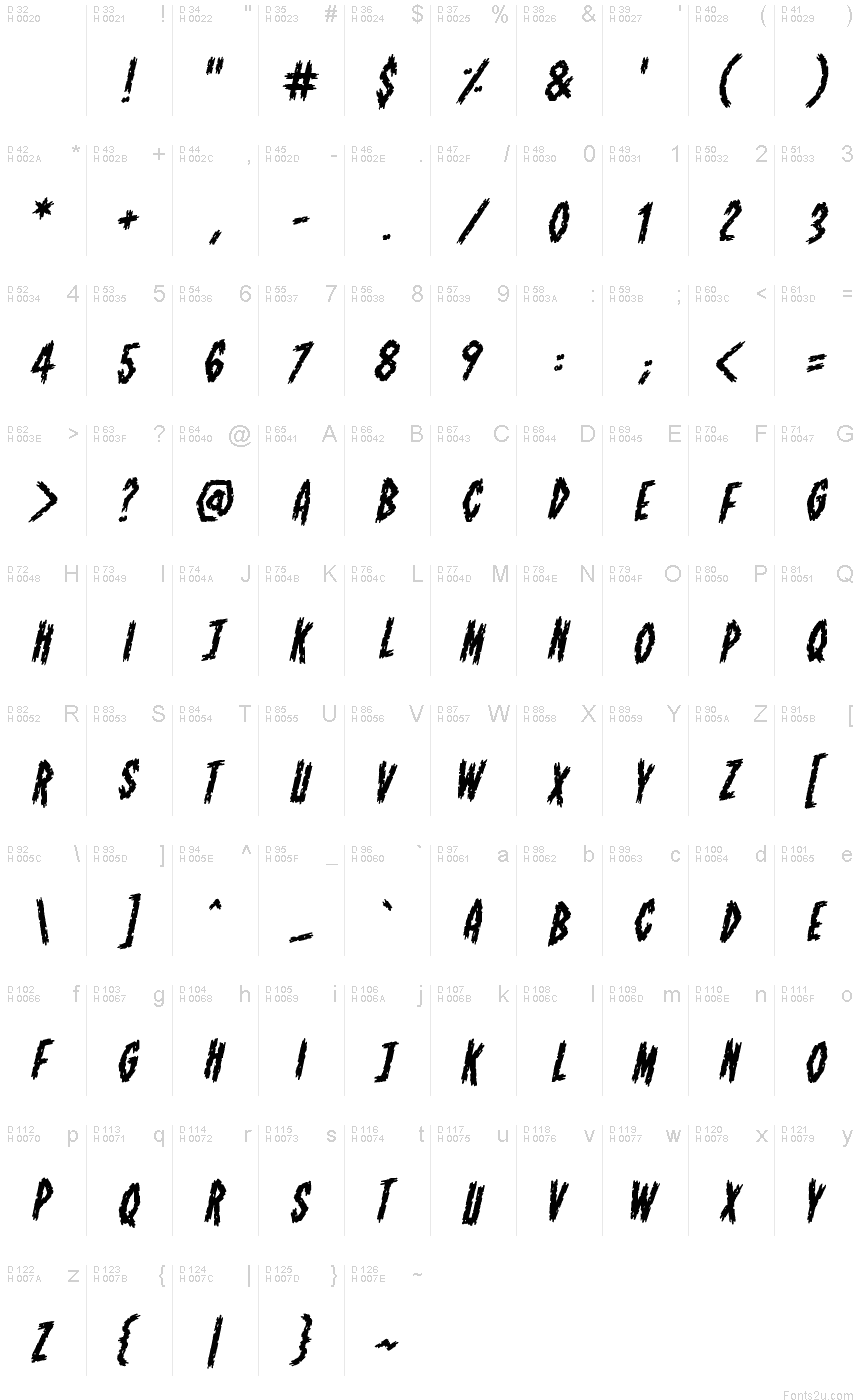
ShallowGrave BB Italic by Nate Piekos of Blambot.com is a free graffiti font with a harsh, scraped finish. Its tall letters lean forward, with uneven edges and sharp cuts that make the strokes look hacked into place. Narrow gaps and restless silhouettes give the lettering a tense, hurried character.
Horror film posters and punk record sleeves both suit its damaged, confrontational texture, and it can lend game graphics a raw title treatment. The style is aimed squarely at designers working with underground music, slasher entertainment, and rebellious youth culture.